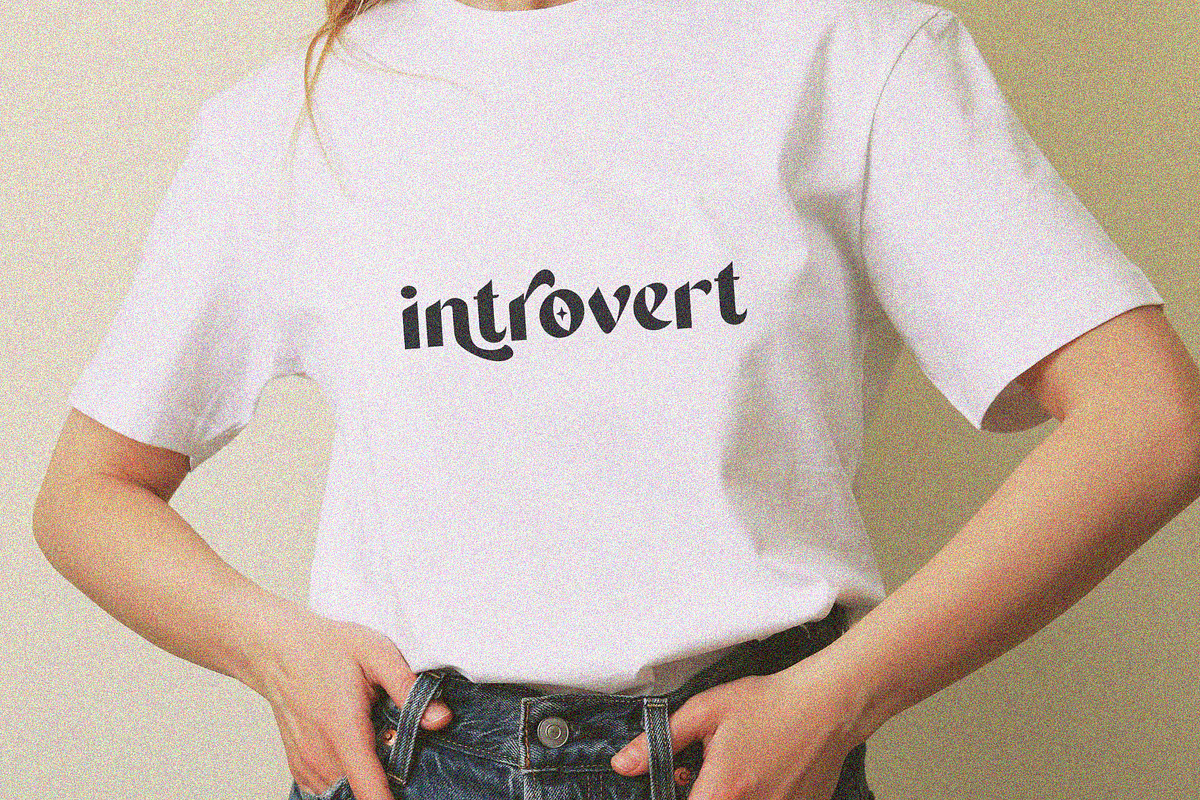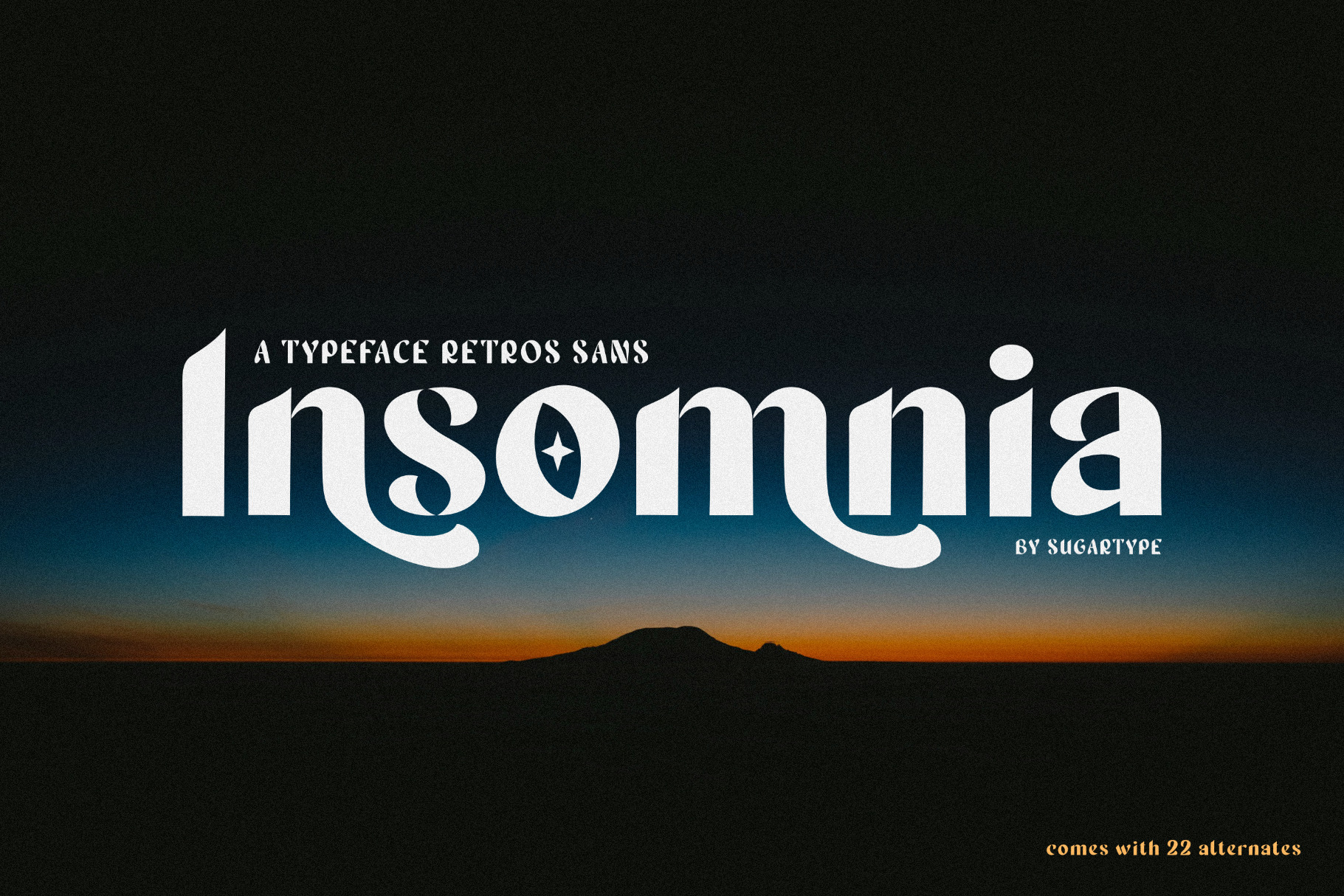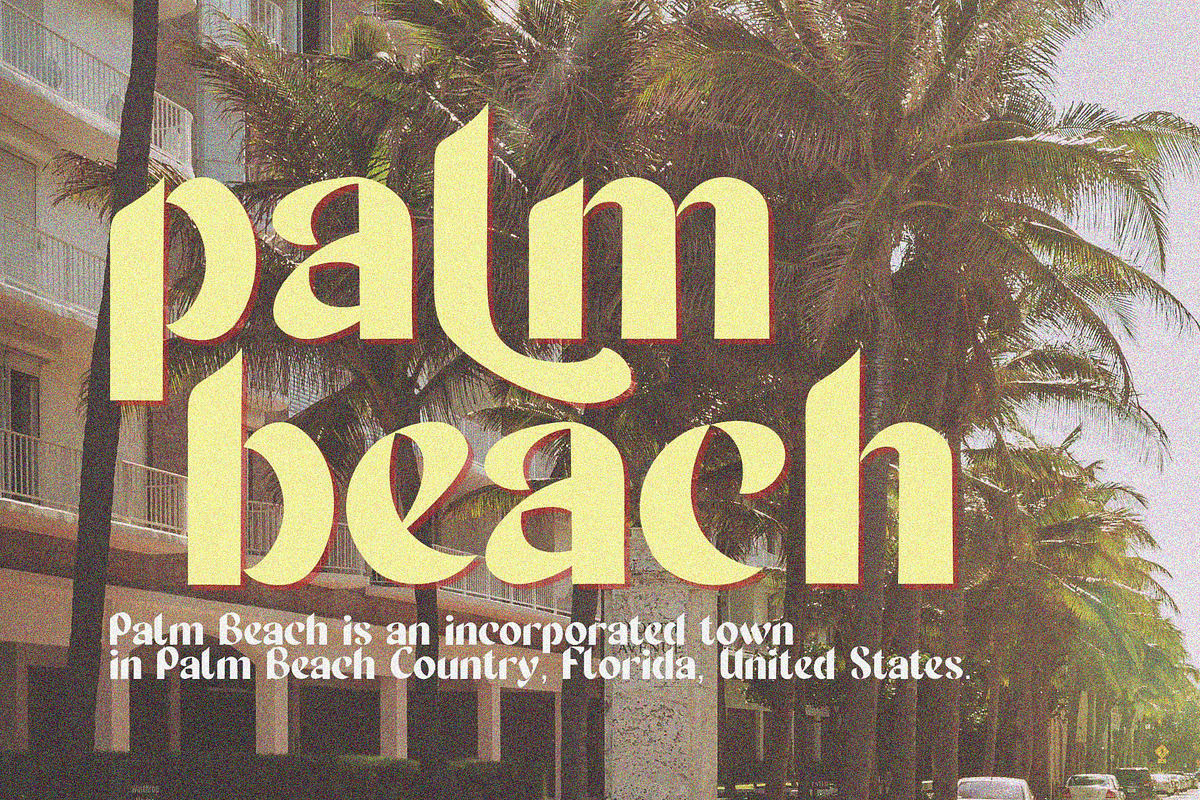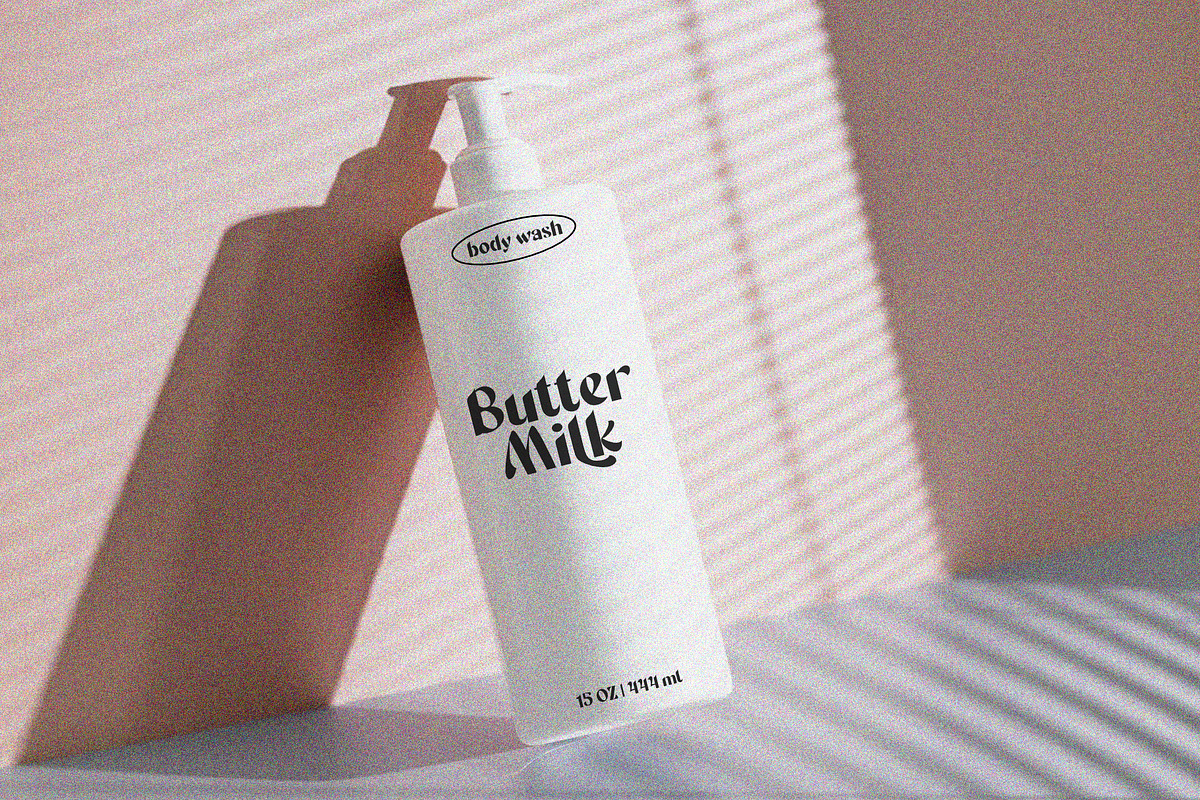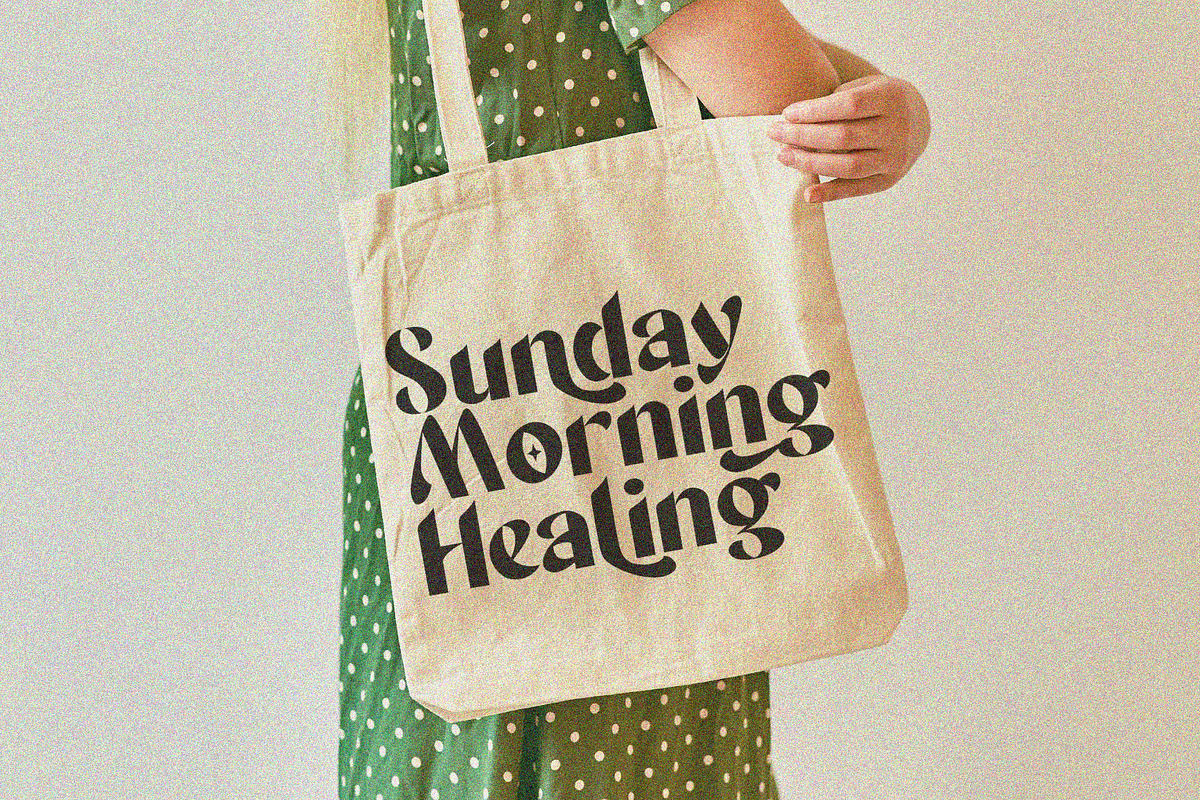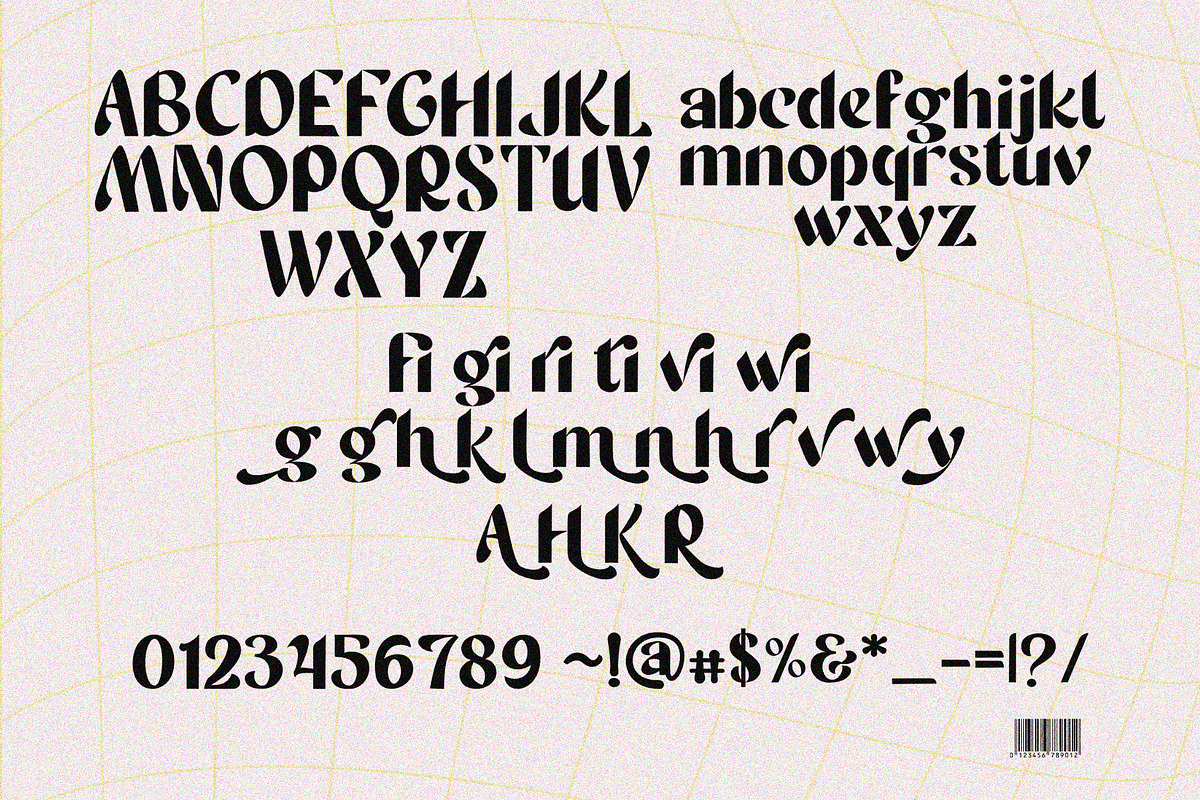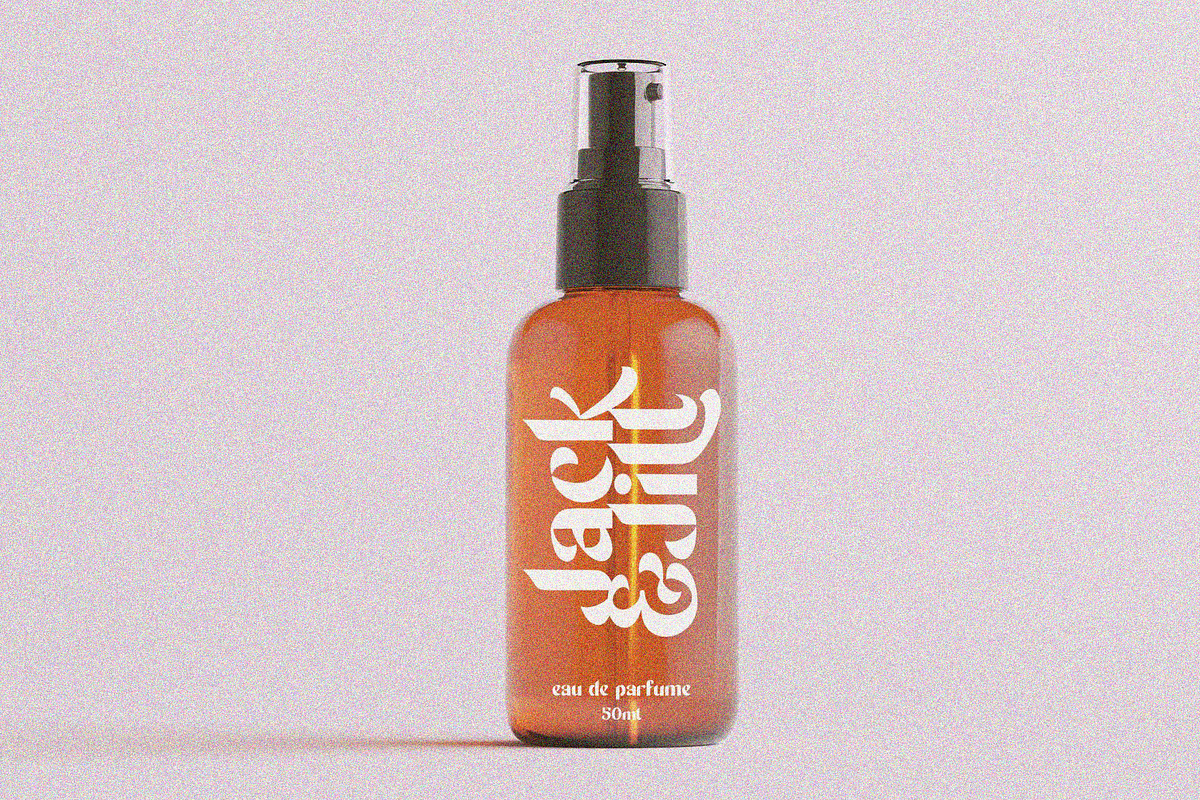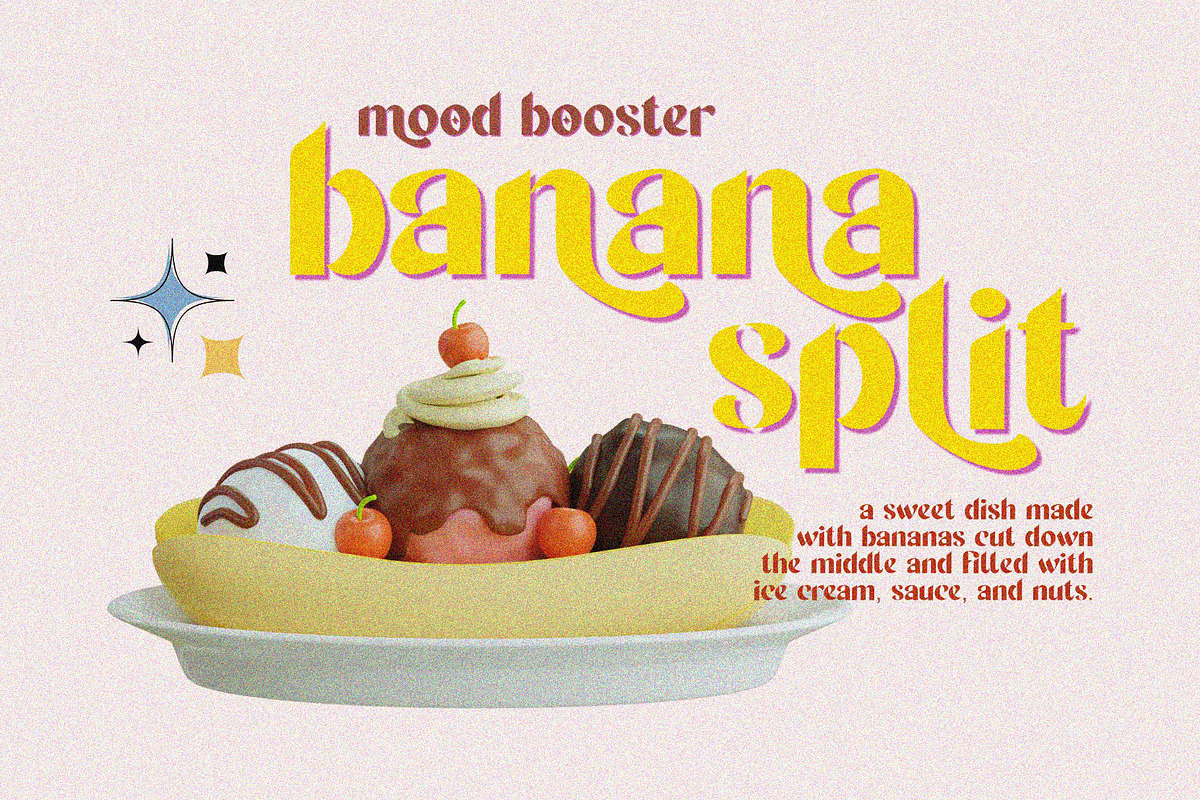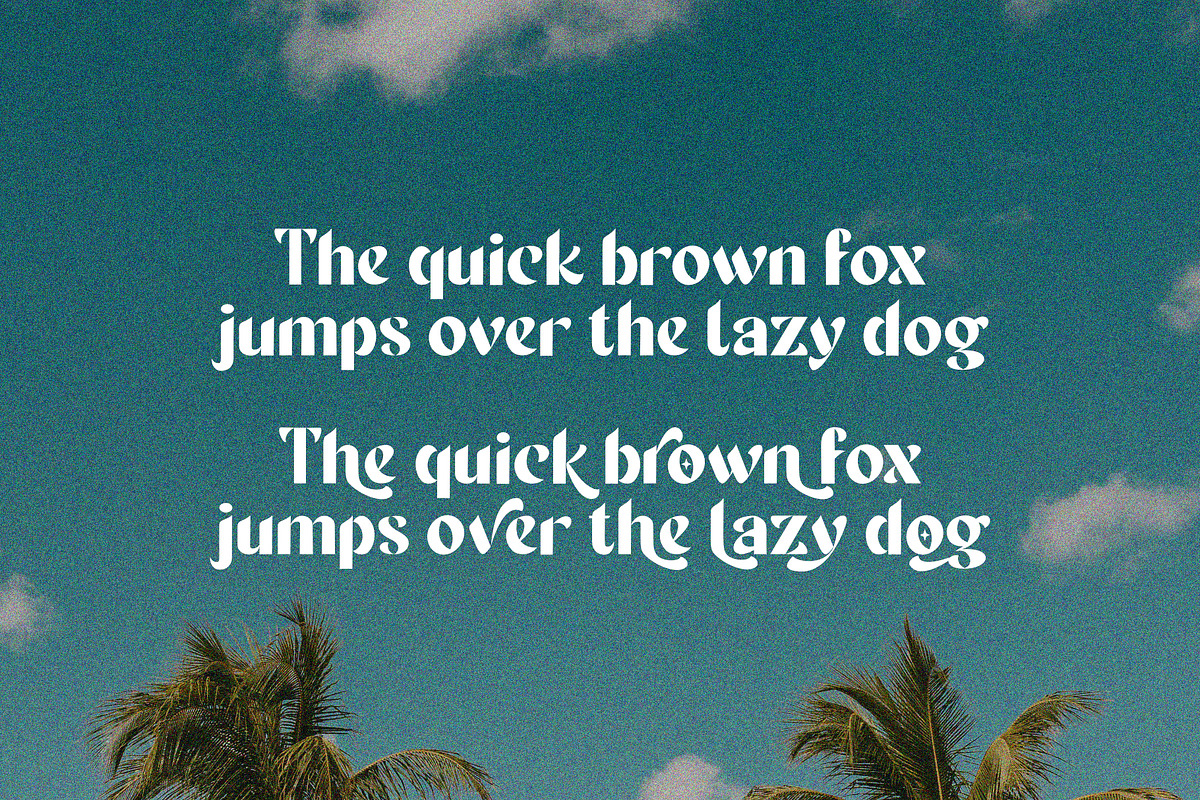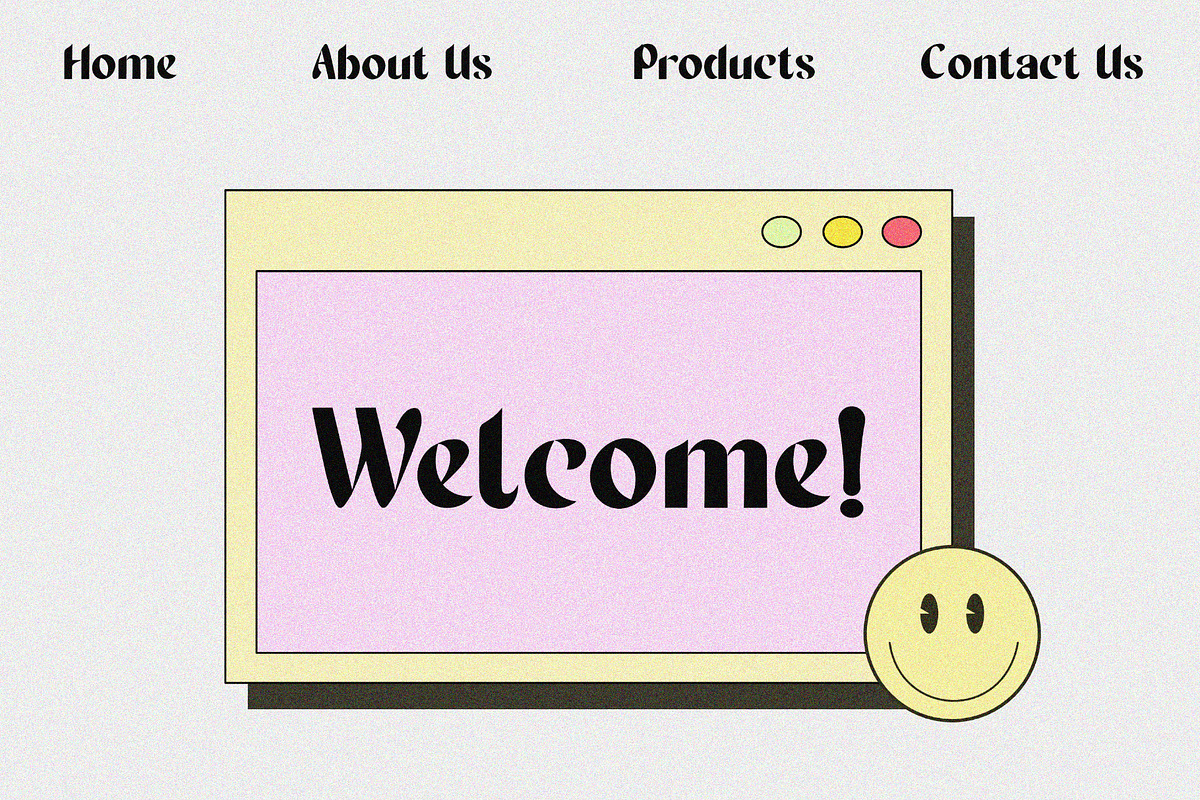
Insomnia | Retro Typeface Display
Introducing Insomnia, a display typeface sans serif retro font.
combined modern and fun typeface, the alternates and ligatures make this font look authentic.
This font is perfect for retro-style projects such as websites, social media, logos, shirts, stickers, packaging, advertisements, and more.